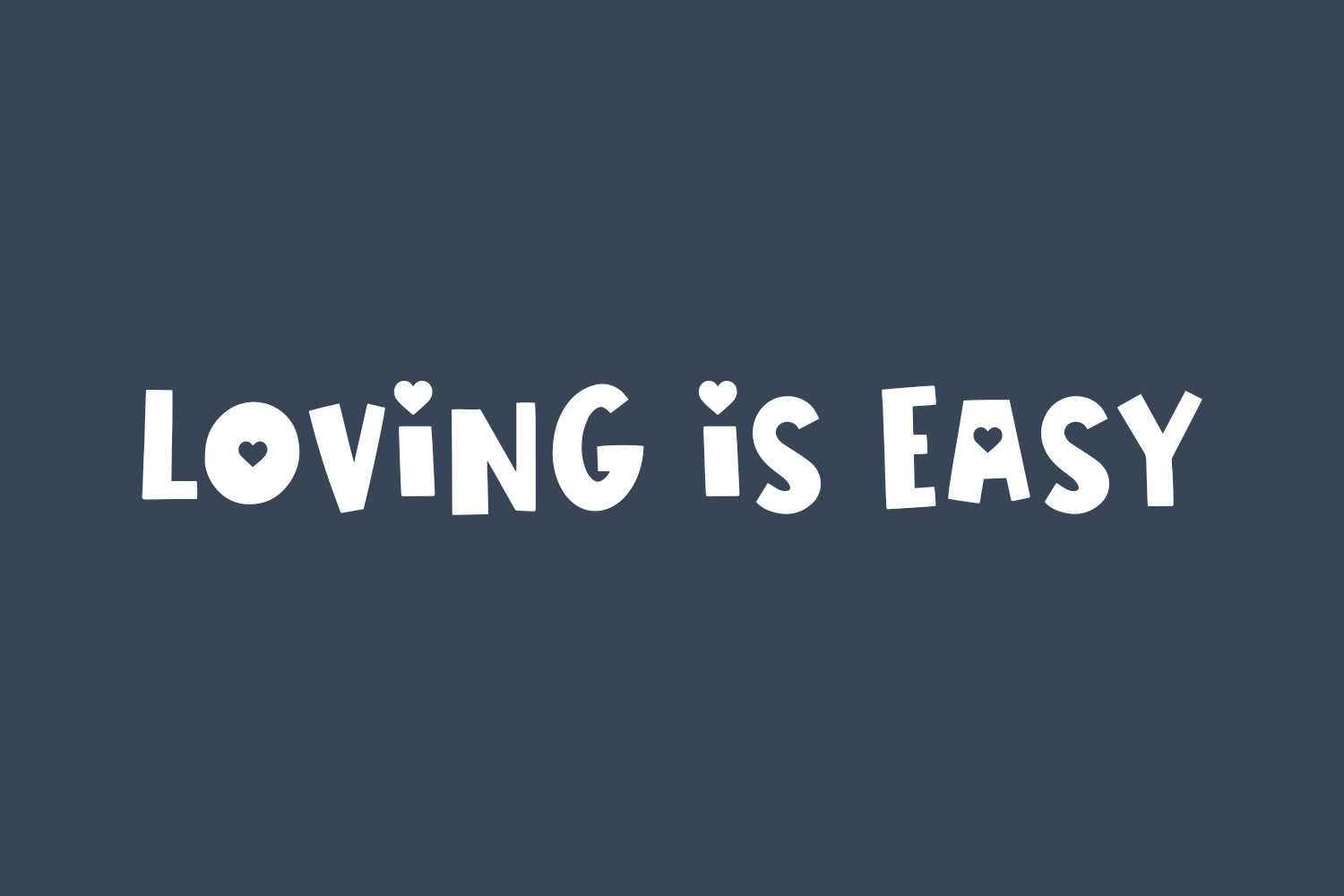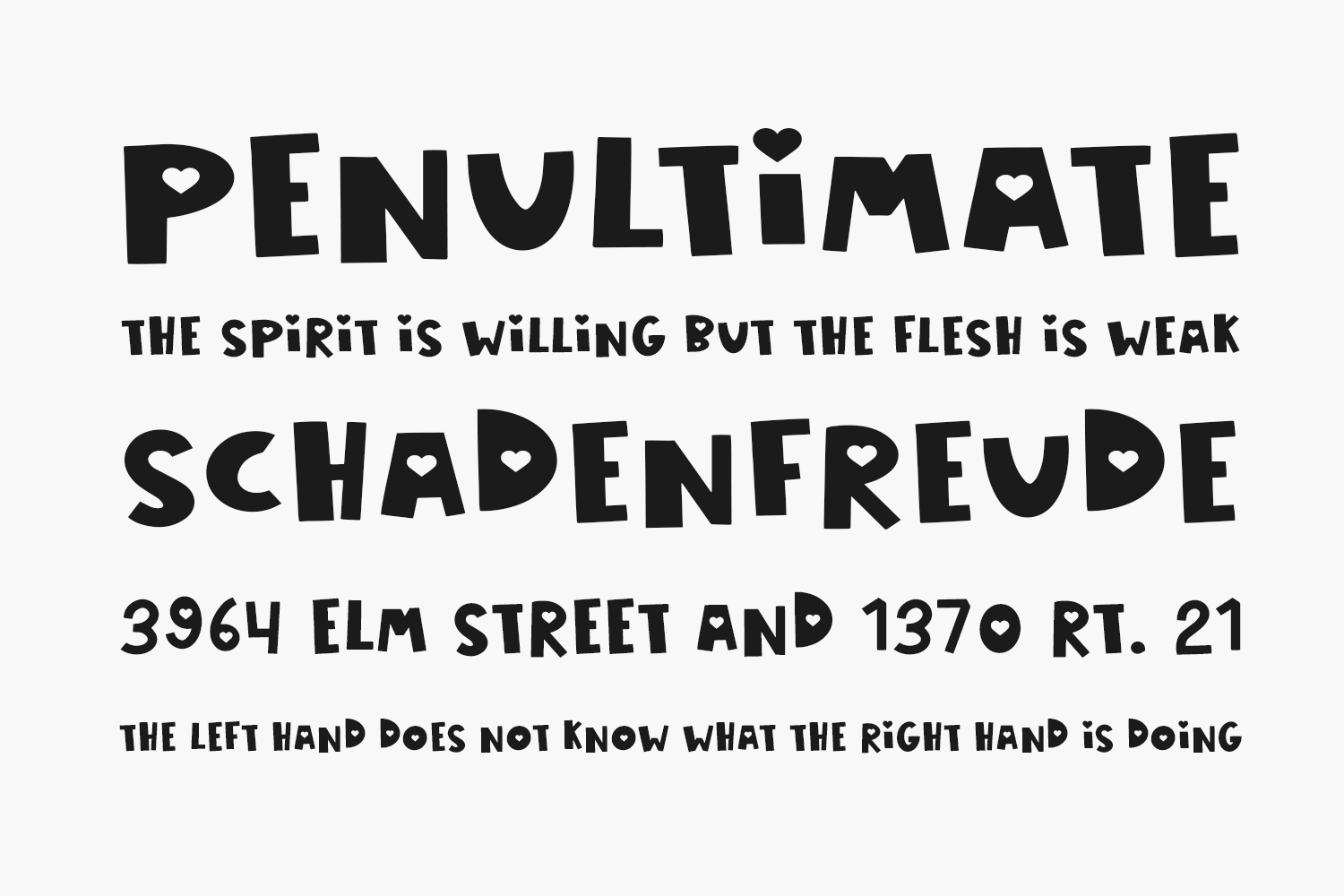
Loving is Easy Free Font was created with the intention of embodying playful and romantic typography. Its bouncy design makes it an ideal choice for projects that require an added touch of attraction and playfulness. With a high level of aesthetic quality, this font is ideal for use in Valentine’s Day designs, book covers, posters, packaging, merchandise, logos, and much more.